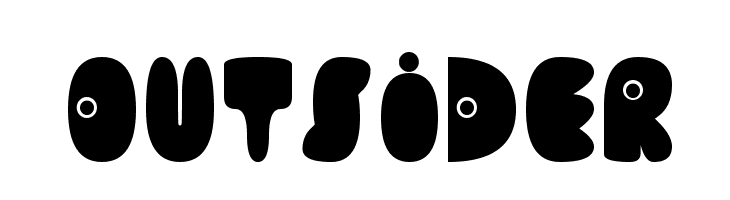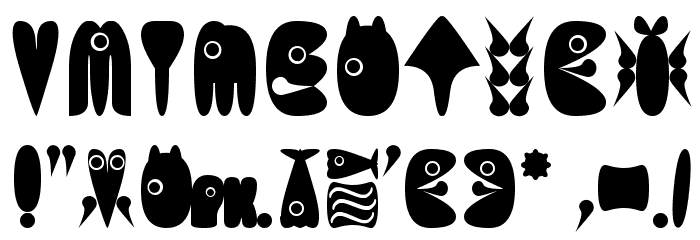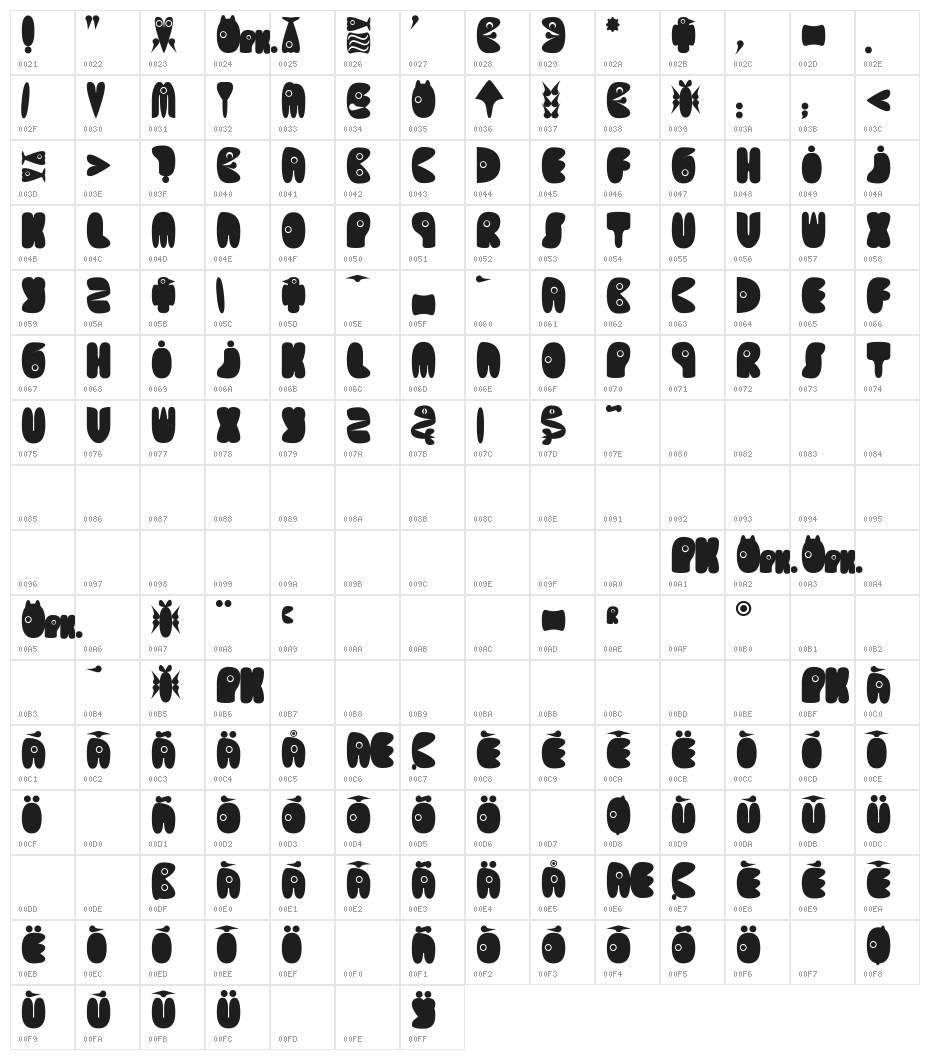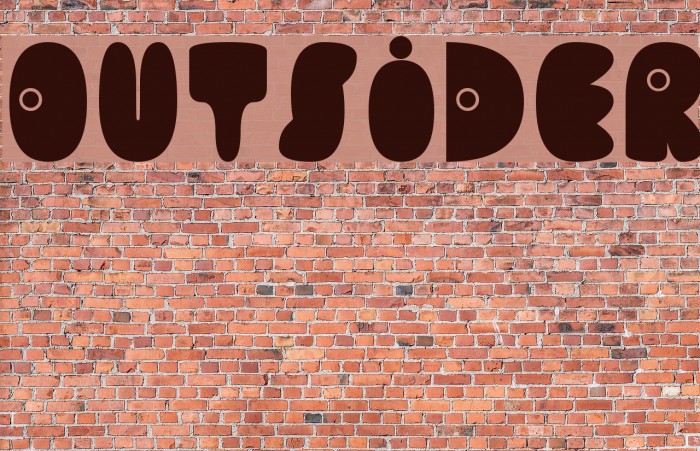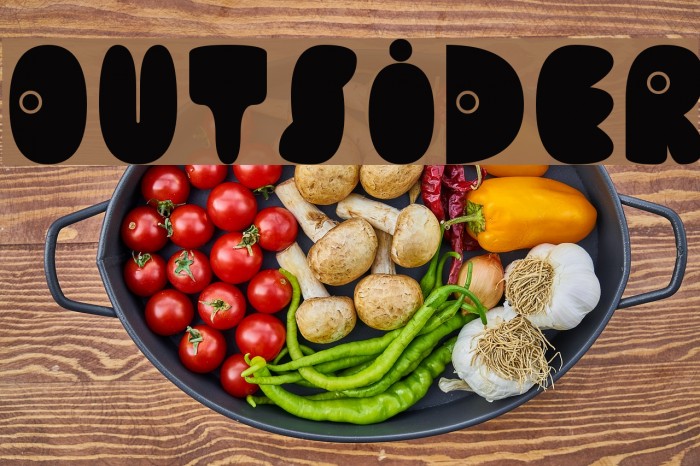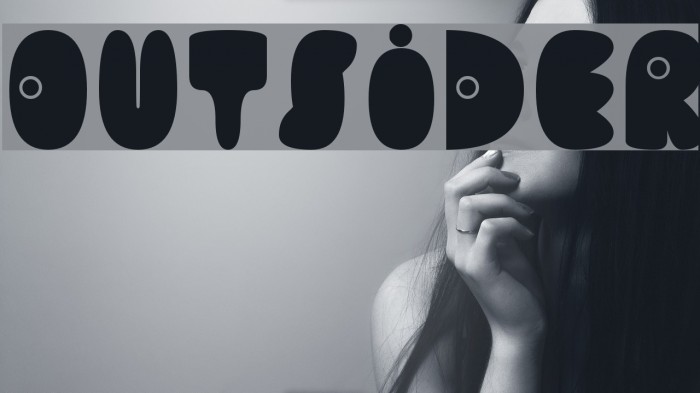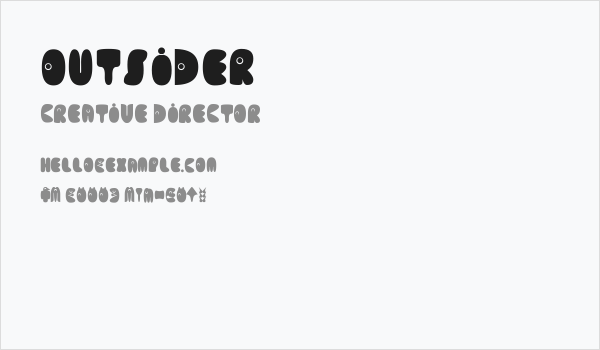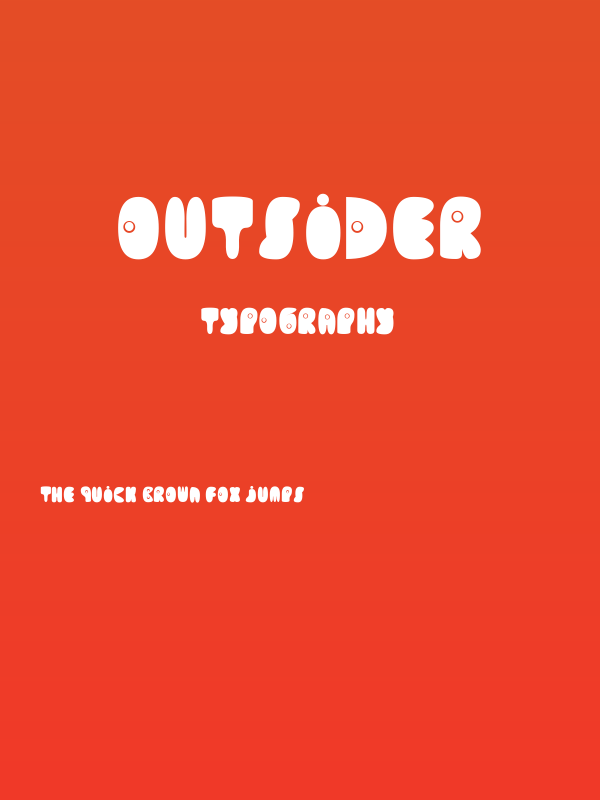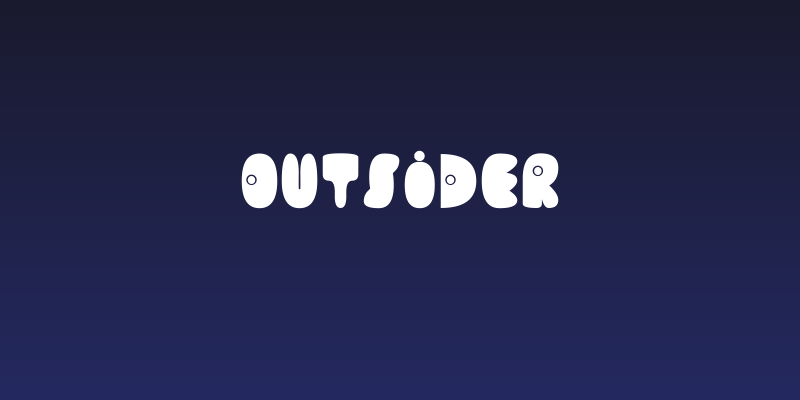
Outsider Font
Outsider Description
This font features a playful and whimsical design, characterized by its bold and rounded letterforms. Each character is uniquely crafted with quirky elements, such as eyes or abstract shapes, giving it a distinctive and artistic appearance. The font's thick strokes and uniform weight contribute to its bold presence, making it stand out in any design. The overall style is highly decorative, with a modern twist that adds a sense of fun and creativity. Its unique character shapes make it ideal for projects that require a touch of humor and individuality.
| Proposed Projects | Ideal for children's books, playful branding, creative posters, and unique logo designs. |